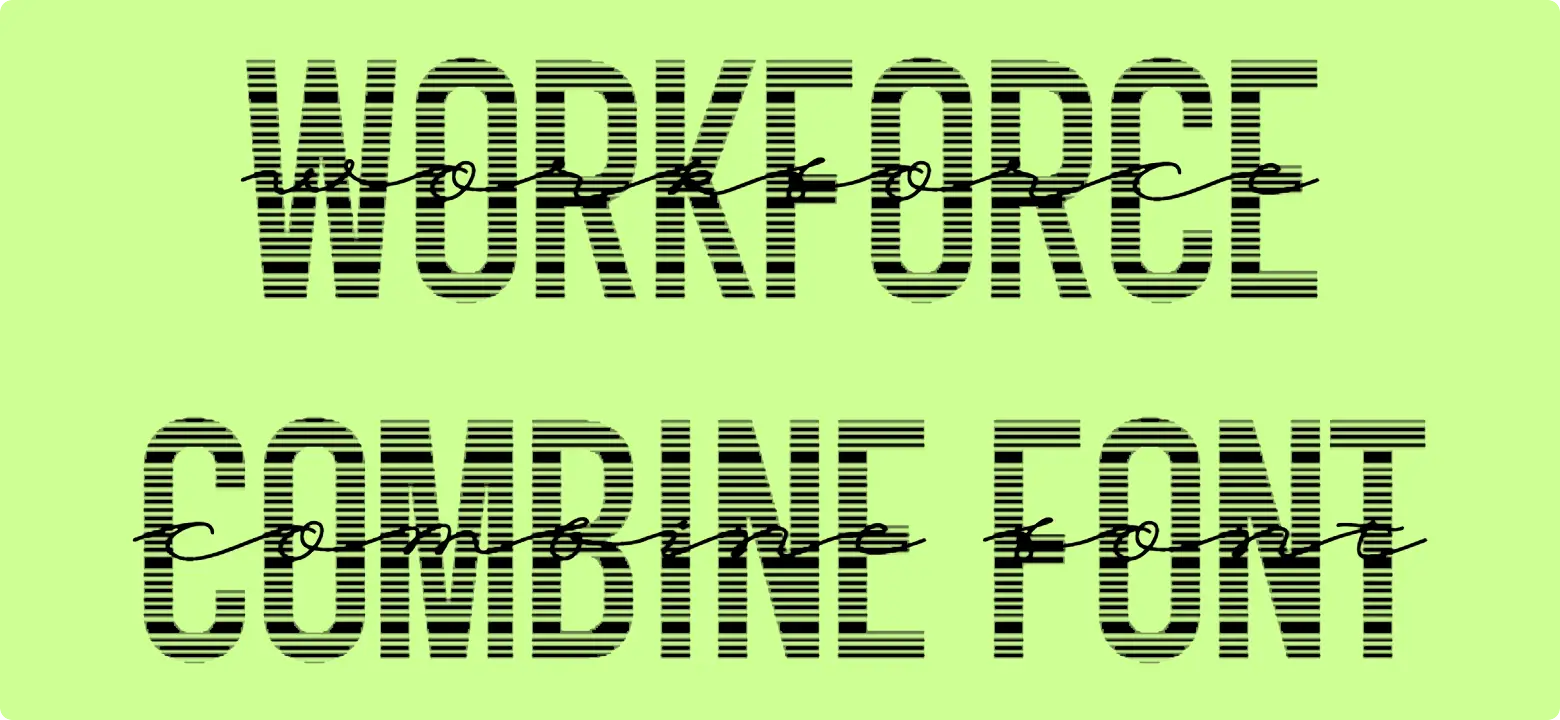
Workforce Combine Font
Workforce Combine
Workforce Combine is a fancy font. Bold and full of character, it's built to stand out rather than blend in. You can download it for free and test it with your own words in the preview above.
With complete upper and lowercase letters and all ten digits, Workforce Combine is ready for real wording, not just a single headline. Common punctuation such as &, !, ? and @ is included as well. It also has the accented letters you need for Spanish, French, German, Portuguese and Italian.
Designers usually reach for fonts like Workforce Combine when they're making posters, logos and eye-catching headlines. Use it for one standout word or headline and let simpler fonts handle the rest.
Yes. Workforce Combine includes the accented letters needed for Spanish, French, German, Portuguese and Italian, so it works for more than just English.